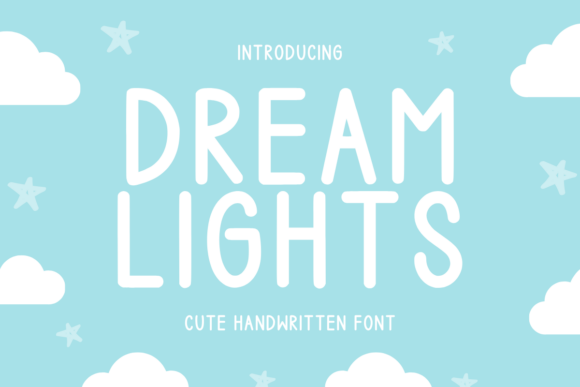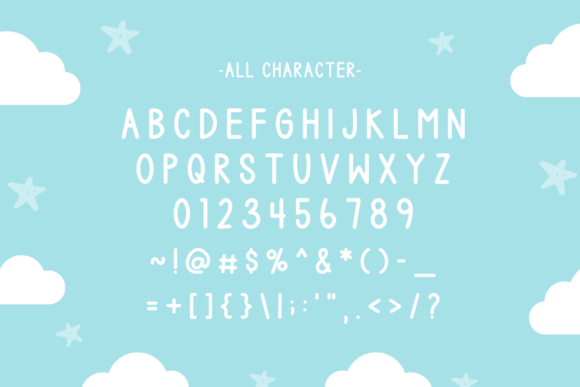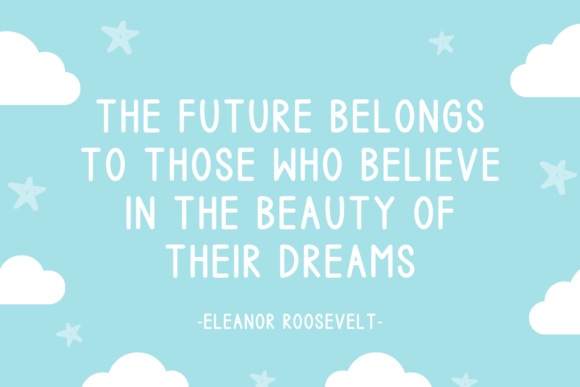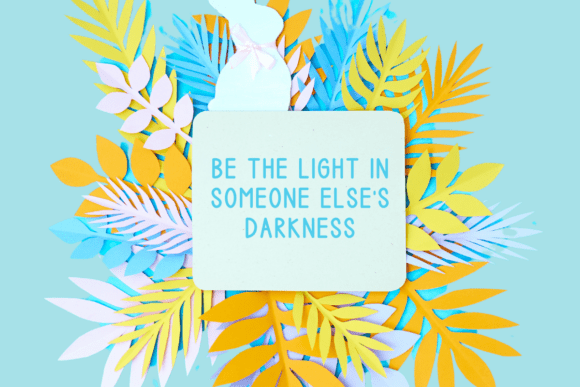
Dream Lights Font: A Playful Handwritten Font for Cricut & Crafts
About the Dream Lights Font
Get ready to be inspired by Dream Lights Font, a fresh and dynamic typeface for modern creators. Dream Lights is a playful handwritten font that’s perfect for crafts, planners, KDP, stickers, greeting cards, and more. With its cute and friendly style, it works great for Cricut, sublimation, and creative DIY projects. Ideal for crafters, designers, and makers!
Dream Lights’ playful energy makes it ideal for branding projects targeting a young, female demographic, particularly those related to crafts, children’s products, or sweet treats. It excels in short headlines, logos, and packaging where its friendly style shines. However, its handwritten nature makes it unsuitable for body text or UI elements requiring high readability.
For optimal pairings, consider a clean sans-serif like Open Sans for body text or a more geometric sans-serif like Montserrat for a modern contrast. Alternatively, a delicate serif like Lora could create a sophisticated balance, while a simple script font would enhance its whimsical character.
The font’s core personality is undeniably friendly and approachable, making it a strong choice for conveying warmth and approachability. Avoid using it in contexts demanding seriousness or professionalism.
Dream Lights Font Usage Examples
Dream Lights Font Example